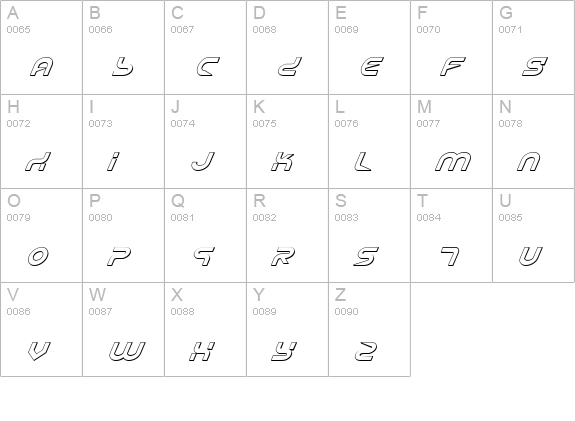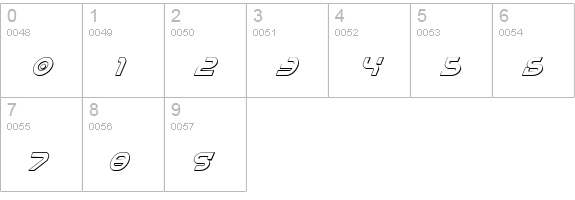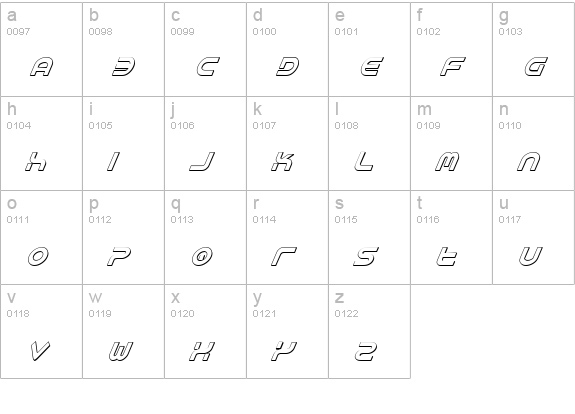
Yukon Tech Shadow Italic is a distinctive, italic variant in the Yukon typeface family \xE2\x80\x94 well suited to design and typography projects.
Introducing Yukon Tech Shadow Italic font, a sleek and modern typeface that exudes sophistication and style. The subtle slant of the italicized characters adds a touch of elegance to any design project. Whether you're creating a logo, website, or print materials, Yukon Tech Shadow Italic font is sure to make a lasting impression. This versatile font is perfect for a wide range of applications, from branding to editorial design. Its clean lines and sharp angles give it a contemporary feel, while the shadow effect adds depth and dimension. Yukon Tech Shadow Italic font is ideal for adding a touch of drama to your designs without overpowering the overall aesthetic. Best of all, Yukon Tech Shadow Italic font is free to download at FontsMarket.com. You can easily access this stunning font and incorporate it into your projects with ease. Don't miss out on the opportunity to elevate your design work with the striking Yukon Tech Shadow Italic font. Download it today and see the difference it can make!